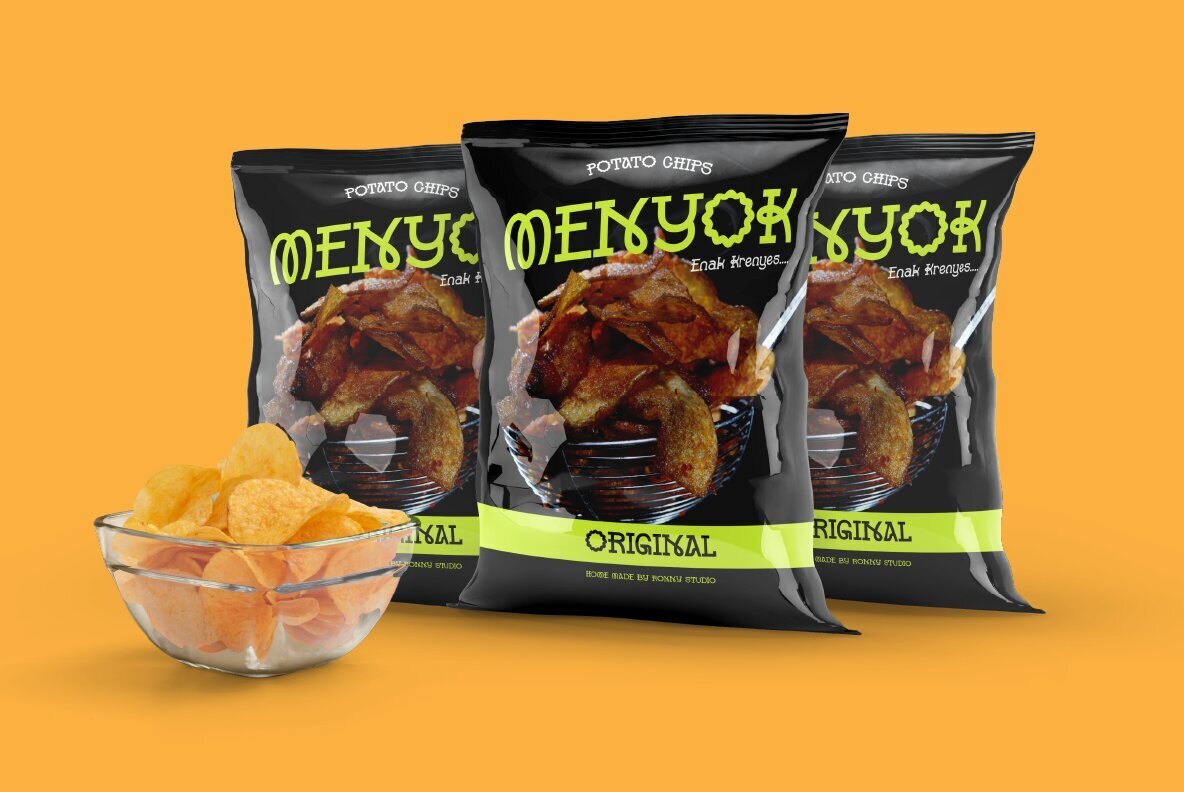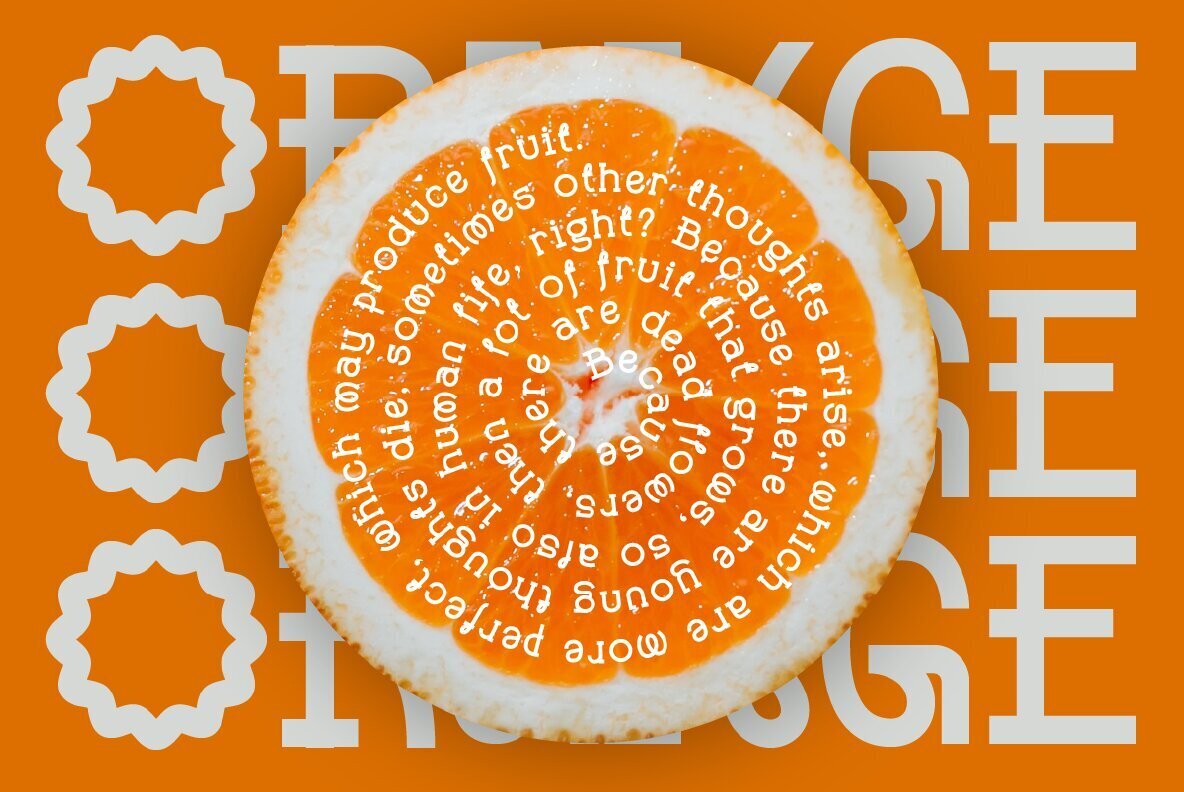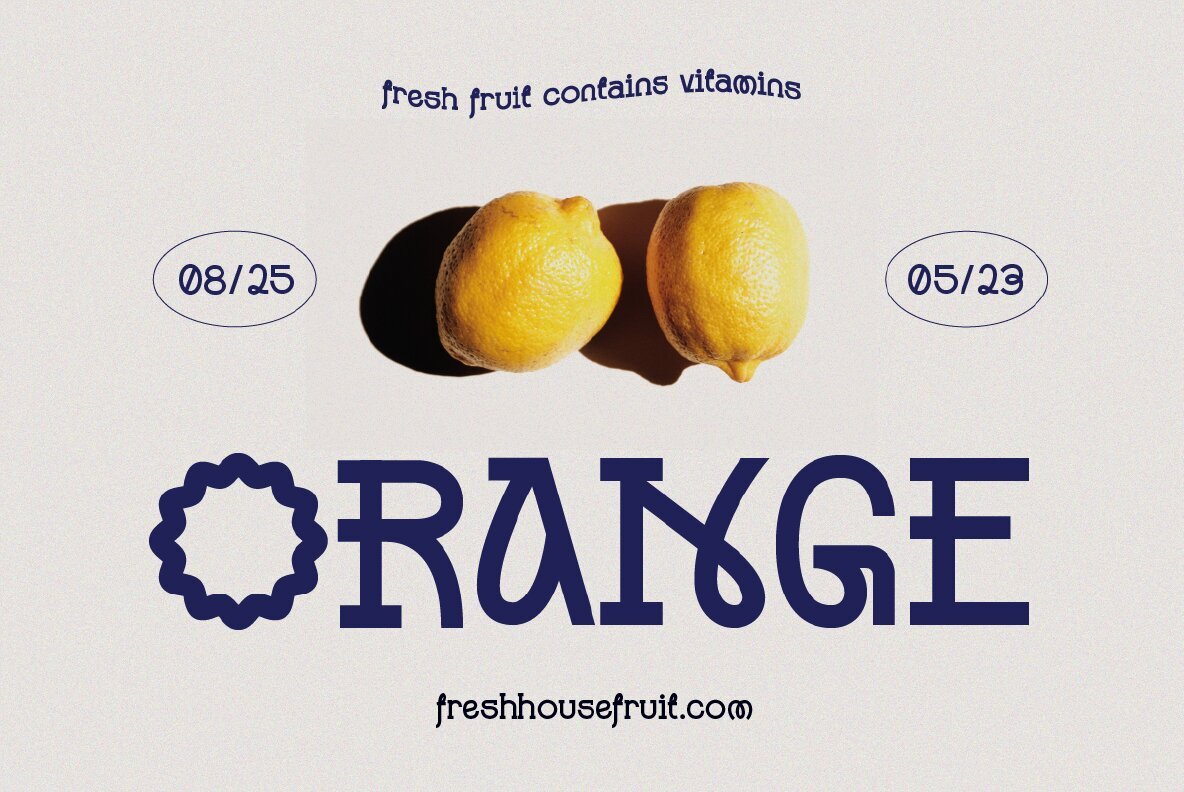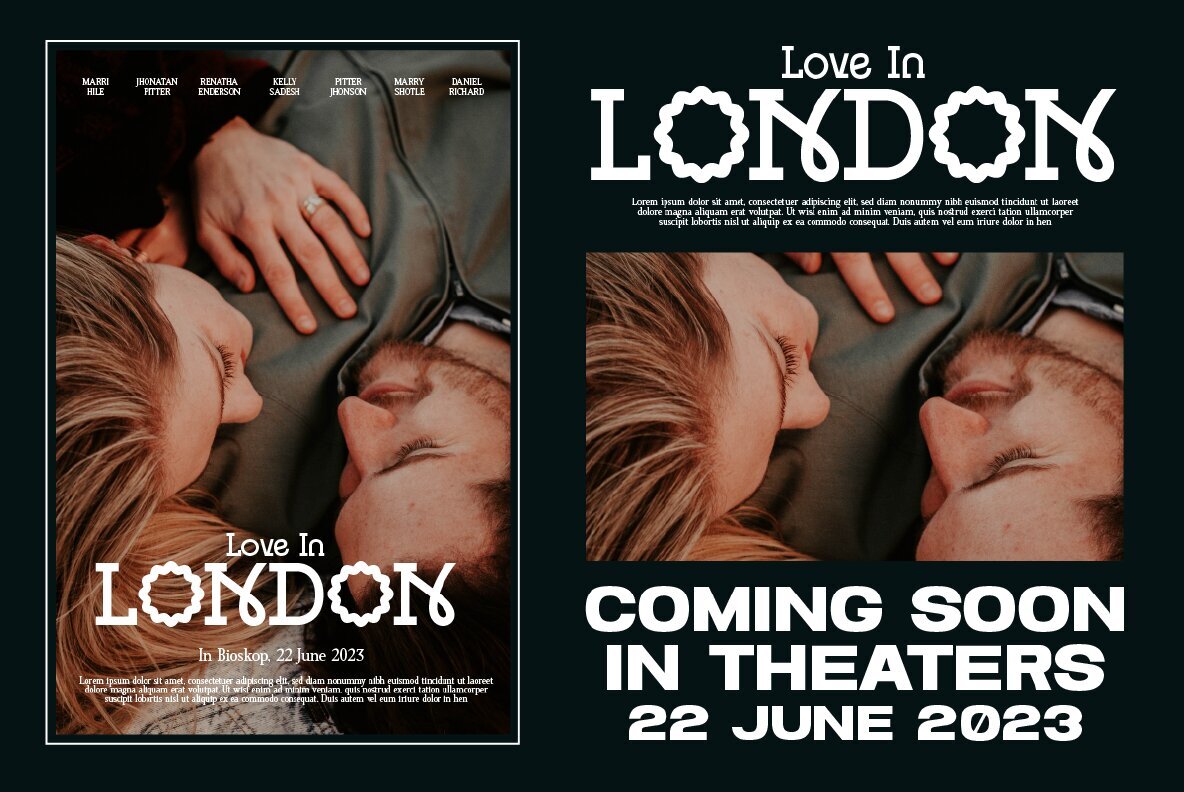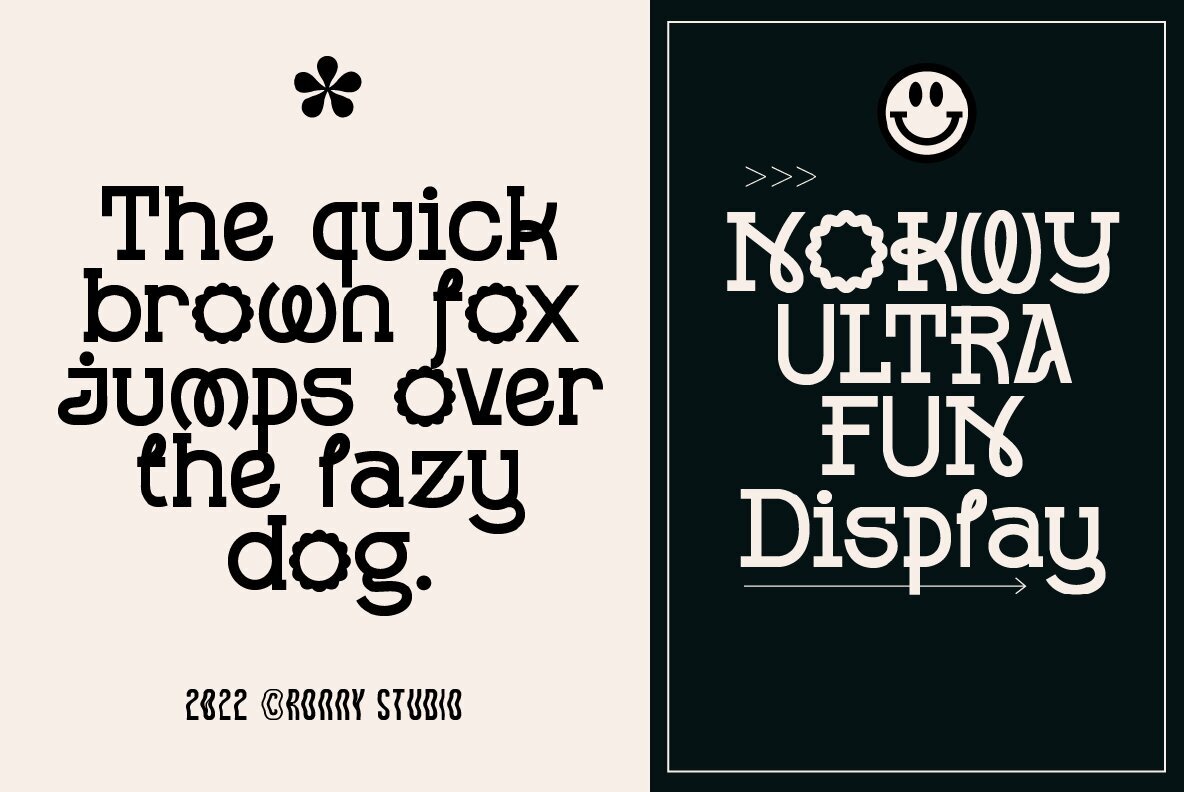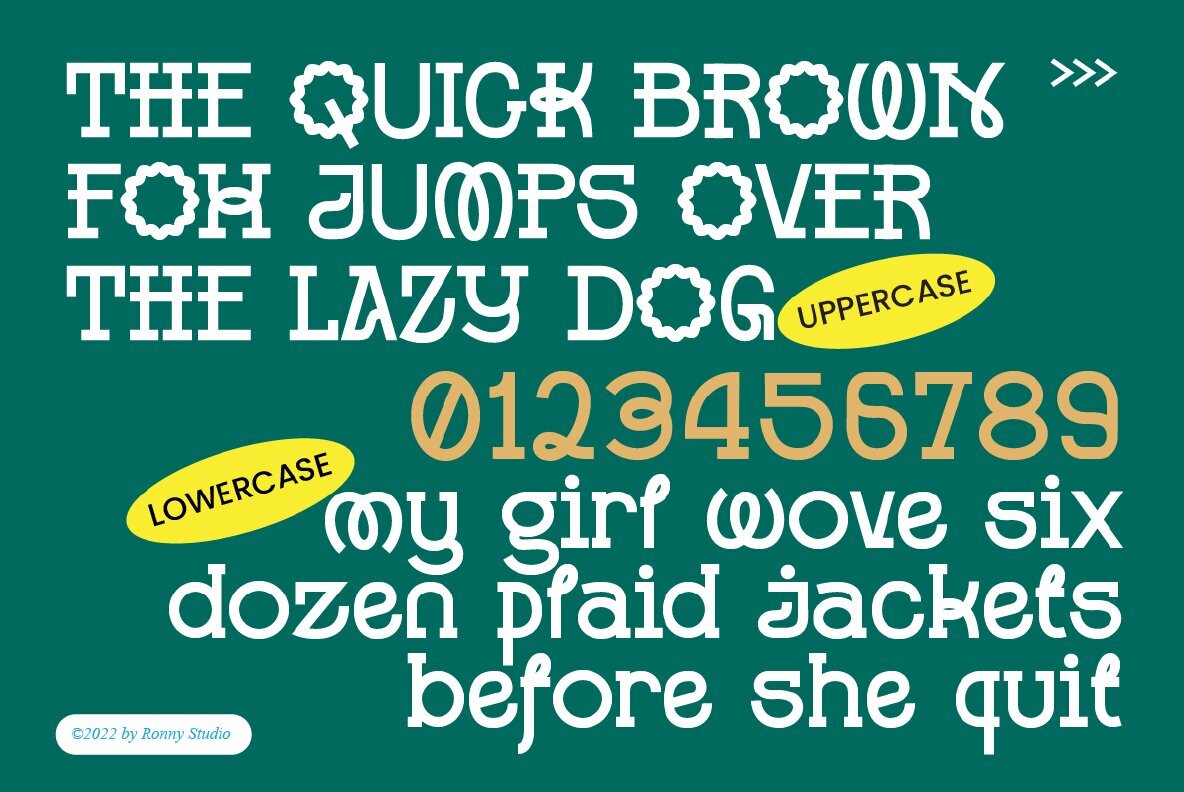
Nokwy Font
Nokwy Regular
Nokwy is a unique display font perfect for contemporary display types and branding.
- Lowercase & Uppercase
- Numbers and Punctuation